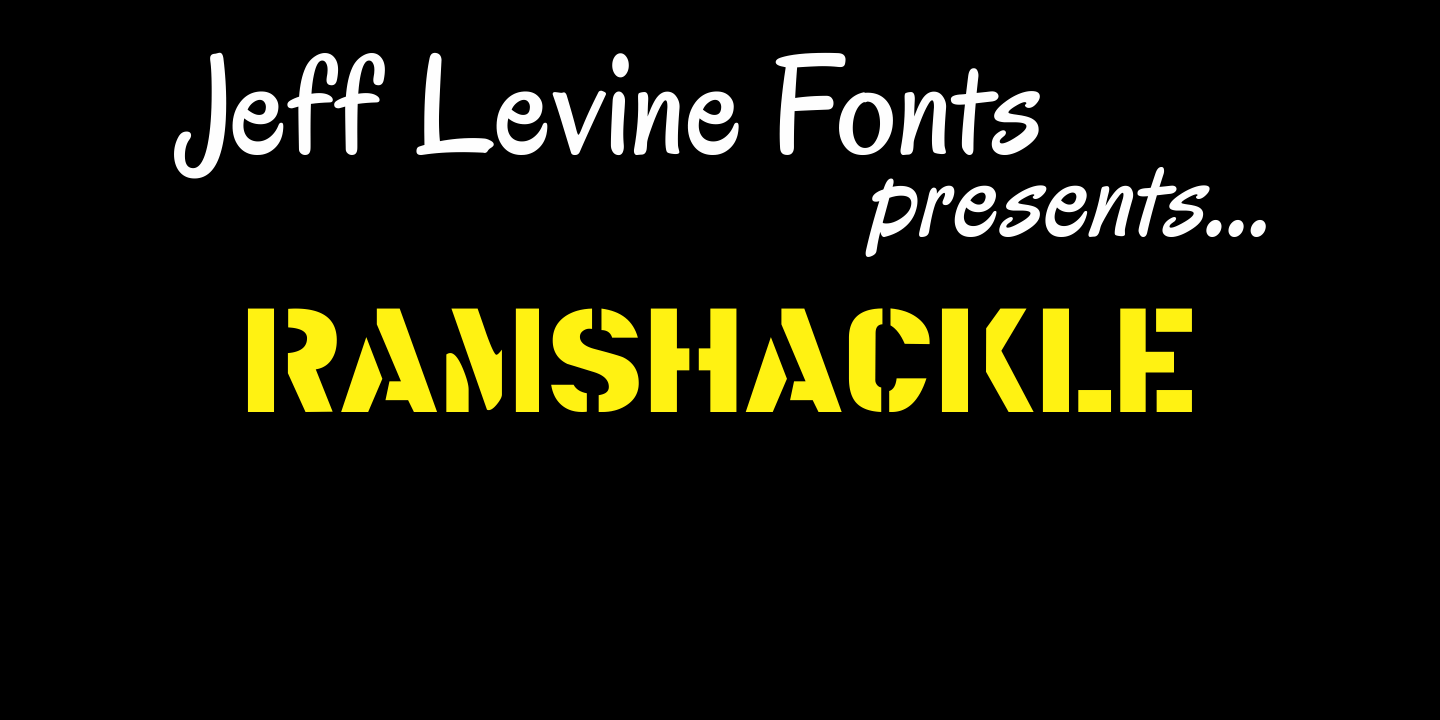
Ramshackle
Ramshackle JNL was modeled from a 1940s lettering stencil and takes its place amongst the many vintage stencil font designs redrawn by Jeff Levine.
Ramshackle JNL Regular by Jeff Levine Fonts